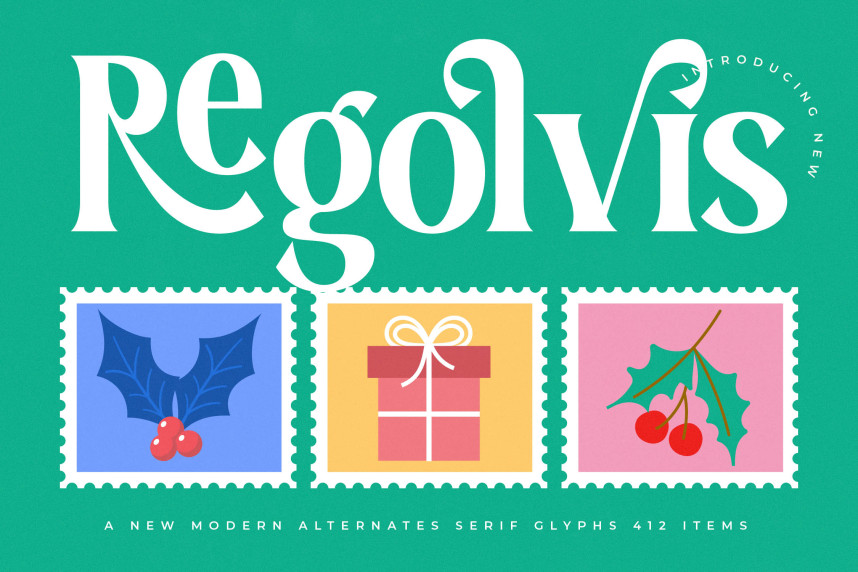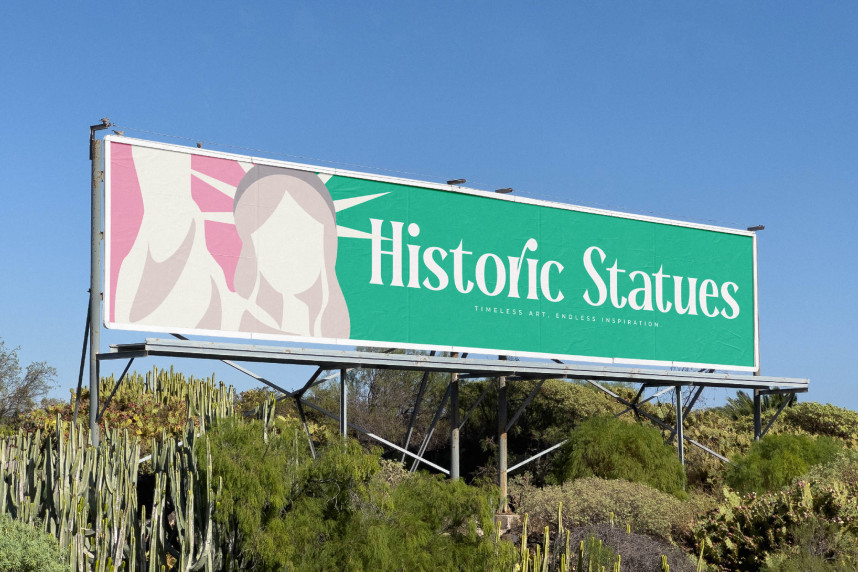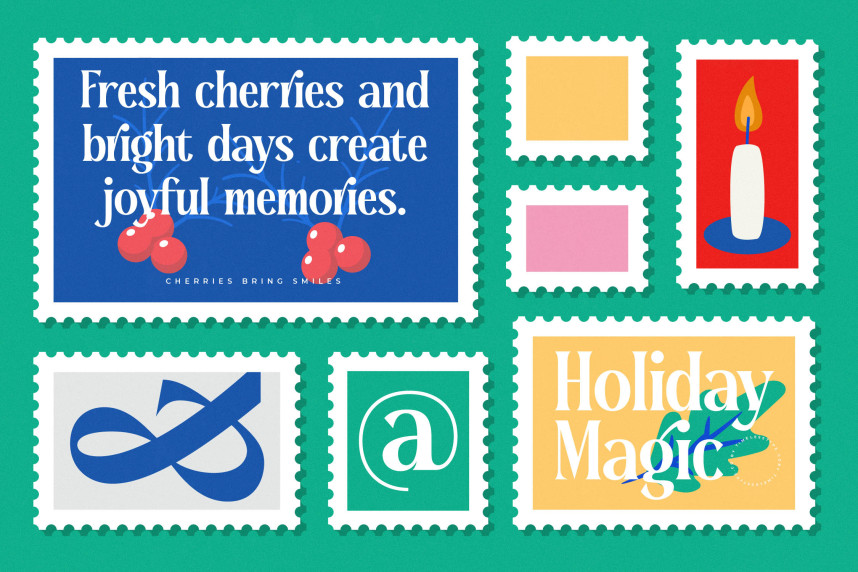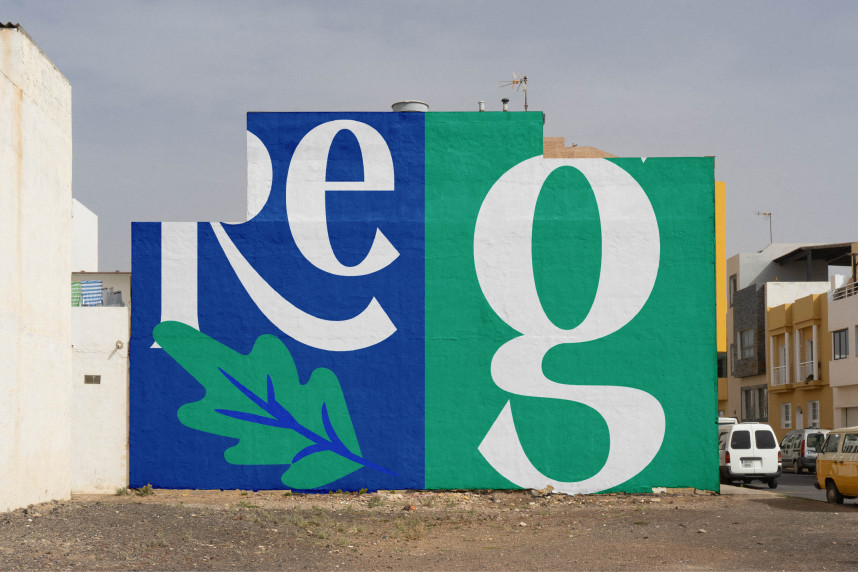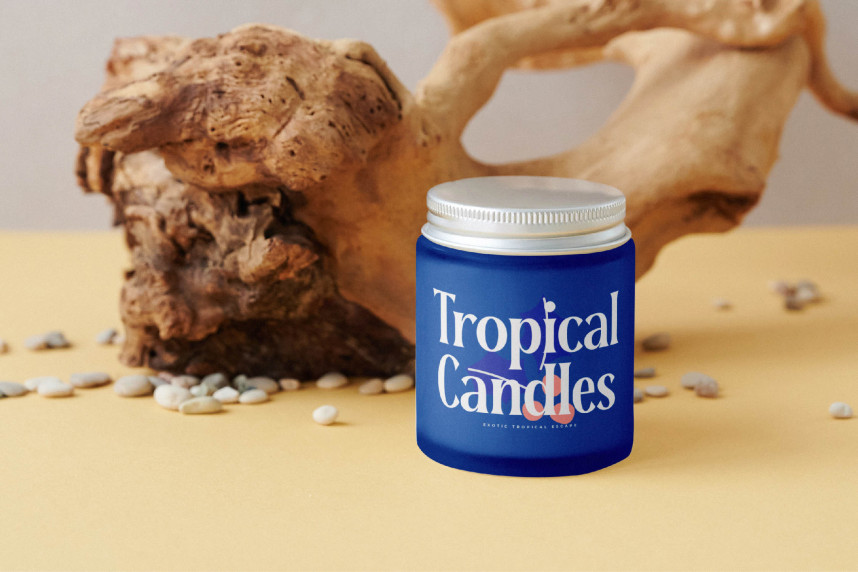
Regolvis Serif Font
Regolvis Serif Font – Modern Alternates Serif Display. This exquisite typeface masterfully blends classic serif elegance with a distinctively modern aesthetic, creating a powerful visual statement. Its high-contrast strokes and beautifully sculpted curves ensure every word captures attention, making it the perfect choice for projects demanding both sophistication and impact.
Unleash unparalleled creative flexibility with its rich set of alternates. Font Regolvis – Modern Alternates Serif Display offers designers an arsenal of unique character variations, allowing for bespoke typographic expressions that truly stand out. This display font is meticulously crafted to convey a sense of premium quality and artistic refinement, transforming ordinary text into captivating visual art.
Reach a truly global audience with absolute confidence. With its extensive multilingual support, Font Regolvis – Modern Alternates Serif Display adapts seamlessly across global markets, making it incredibly versatile for international projects. This feature ensures your message resonates clearly and beautifully, maintaining its professional appeal and distinctive style regardless of language.
Discover the ultimate tool for truly iconic visual communication. Font Regolvis – Modern Alternates Serif Display is perfect for luxury branding, high-end packaging, editorial design, fashion magazines, sophisticated invitations, and memorable logo design. Leverage its unique character and contemporary flair to craft headlines and statements that are not just read, but felt and remembered.